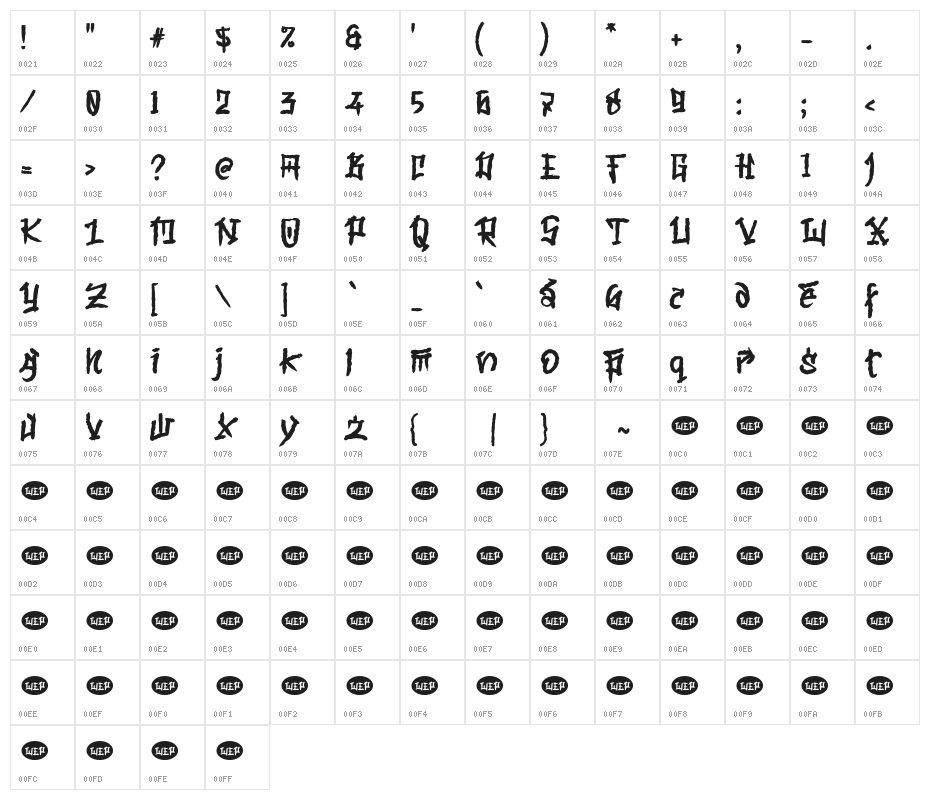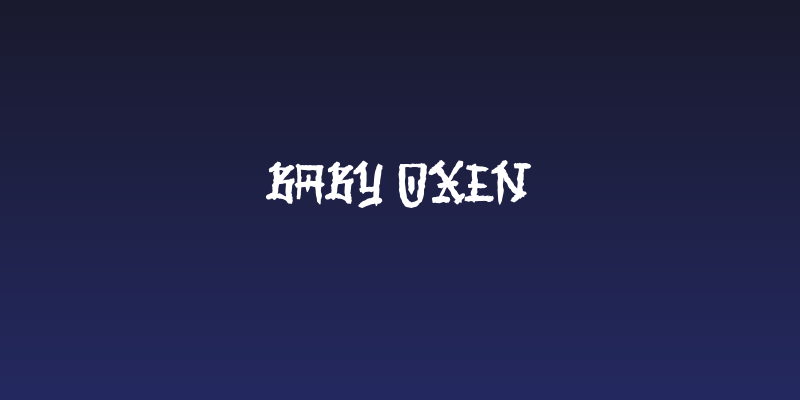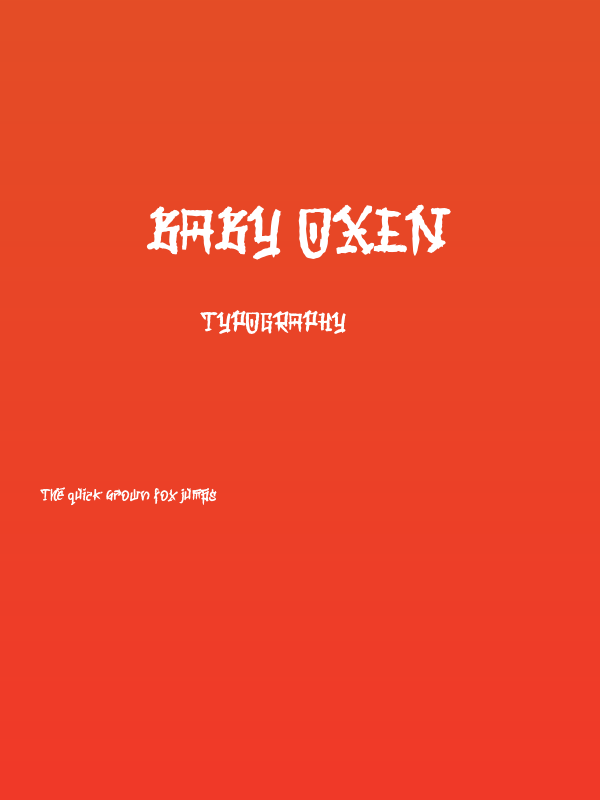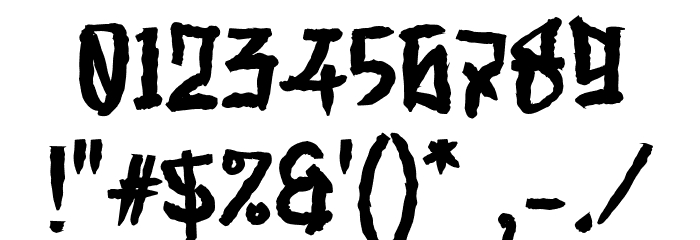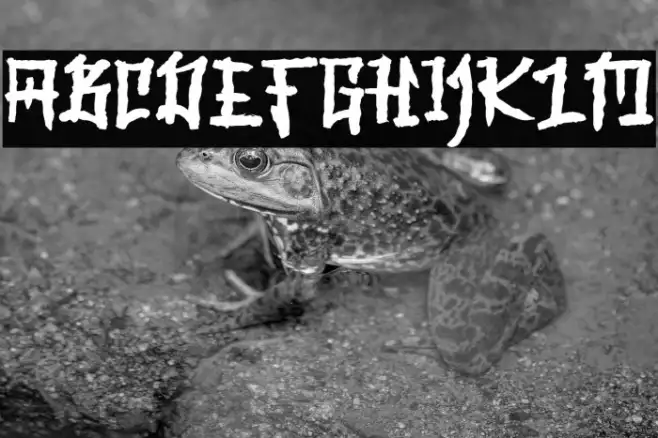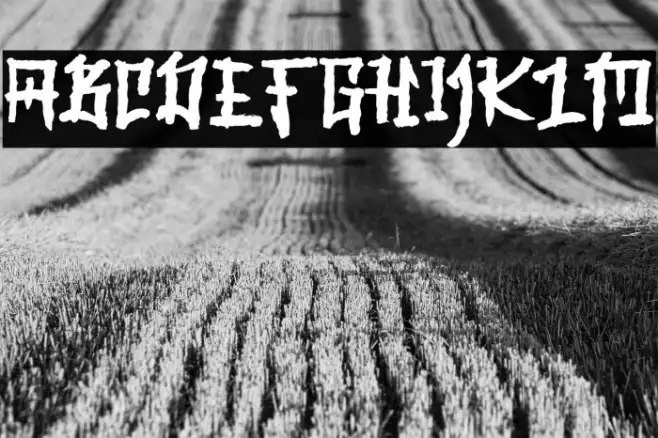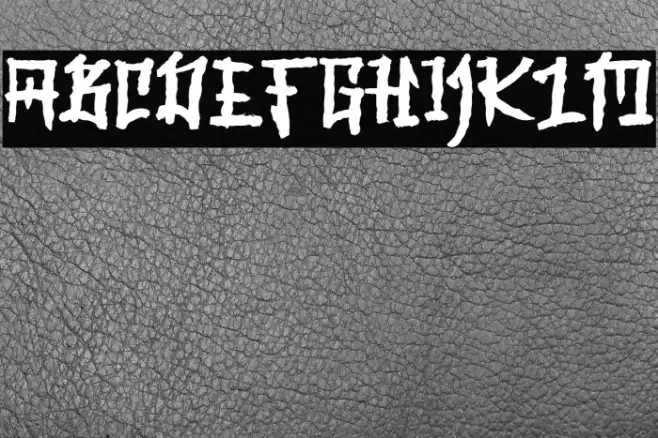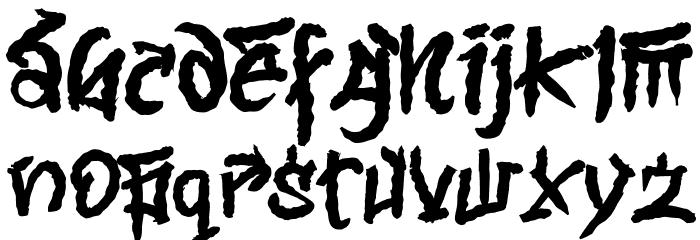
BABY OXEN Font
BABY OXEN Description
This font features a bold and dramatic style with a distinct Gothic influence. The characters are heavily stylized with sharp, angular lines and a hand-drawn appearance, giving it a rugged and edgy feel. The uppercase and lowercase letters maintain a consistent design, with exaggerated serifs and strokes that create a sense of movement and energy. The numbers and special characters follow the same aesthetic, ensuring a cohesive look across all elements. This font's unique style makes it stand out, perfect for projects that require a strong visual impact.
| Proposed Projects | Ideal for album covers, posters, branding for edgy or alternative products, and any design needing a dramatic flair. |